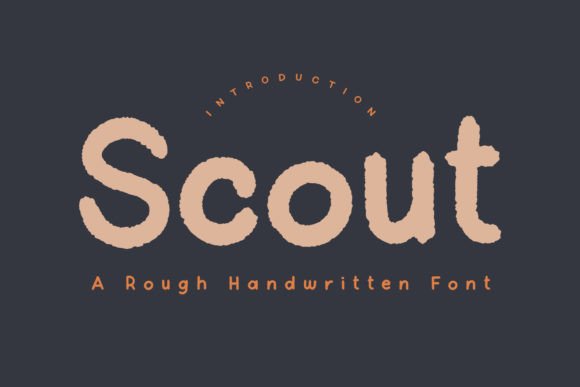
Welcome to the realm of Scout Font, a captivating creation by alpapranastudio, where retro and modern aesthetics harmoniously converge. Picture yourself strolling along bustling sidewalks, surrounded by eye-catching signs adorned with Scout's unique charm. Enchanting and alluring, this rough handwritten font carries a timeless appeal that beckons you to explore a world of creative possibilities.
Whether you're a branding visionary, a logo design maestro, or a lettering aficionado, Scout Font is your ultimate companion. Let your imagination soar as you craft logos that exude character and personality. Transform your typography into works of art, captivating your audience with each stroke of the pen.
Step into the realm of fashion and apparel, where Scout Font weaves its magic on clothing and shopping bags. Its effortless style adds a touch of sophistication to t-shirts, turning them into wearable masterpieces. Create magazine covers that leap off the shelves, demanding attention with their bold and inviting headlines.
Dive into the world of packaging design, where Scout Font adds a touch of elegance to product labels and boxes. Its versatility knows no bounds, adapting seamlessly to posters, book covers, and photography projects. Unleash the potential of special events by crafting invitations that ignite curiosity and anticipation.
With Scout Font at your fingertips, the creative possibilities are endless. Its multilingual characters allow you to communicate across borders, embracing a diverse audience. The ligatures and alternative style stylistic sets add a layer of depth and dimension to your designs, ensuring that every project stands out from the crowd.